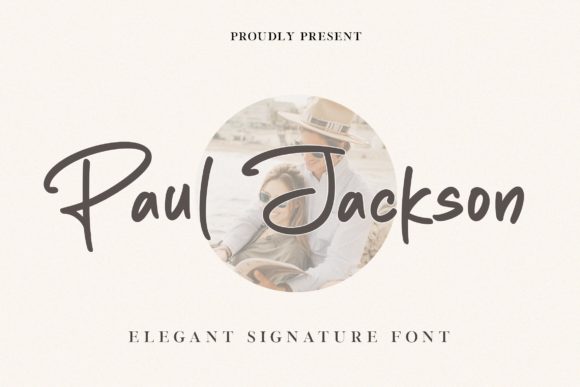
Adorn your digital creations with the captivating Paul Jackson Font, a script typeface that exudes elegance and charm. Inspired by the graceful penmanship of Paul Jackson, this font family adds a touch of sophistication and personality to any design project.
Unleash your creativity and let the Paul Jackson Font dance across your screens, leaving a trail of visual delight. With its smooth curves and organic lines, this font evokes a sense of warmth and approachability, making it ideal for projects that demand a personal touch.
Express yourself freely with this versatile font, whether crafting heartfelt messages, designing stunning logos, or creating eye-catching social media graphics. Its delicate strokes and playful character add a touch of whimsy to any project, transforming words into works of art.
Immerse yourself in the world of Paul Jackson Font and discover its endless possibilities. This font is the perfect companion for lifestyle and fashion blogs, adding a touch of elegance to your online presence. It also shines in invitations, greeting cards, and other personal stationery, bringing a heartfelt touch to every occasion.
Elevate your digital marketing efforts with the Paul Jackson Font, creating captivating headlines and engaging social media posts that leave a lasting impression on your audience. Its charming personality and readability make it perfect for website design, ensuring your message is conveyed with style and clarity.
Join the creative community that has embraced the beauty of the Paul Jackson Font, transforming their projects into masterpieces. Experience the joy of using a font that speaks to your soul and ignites your imagination.